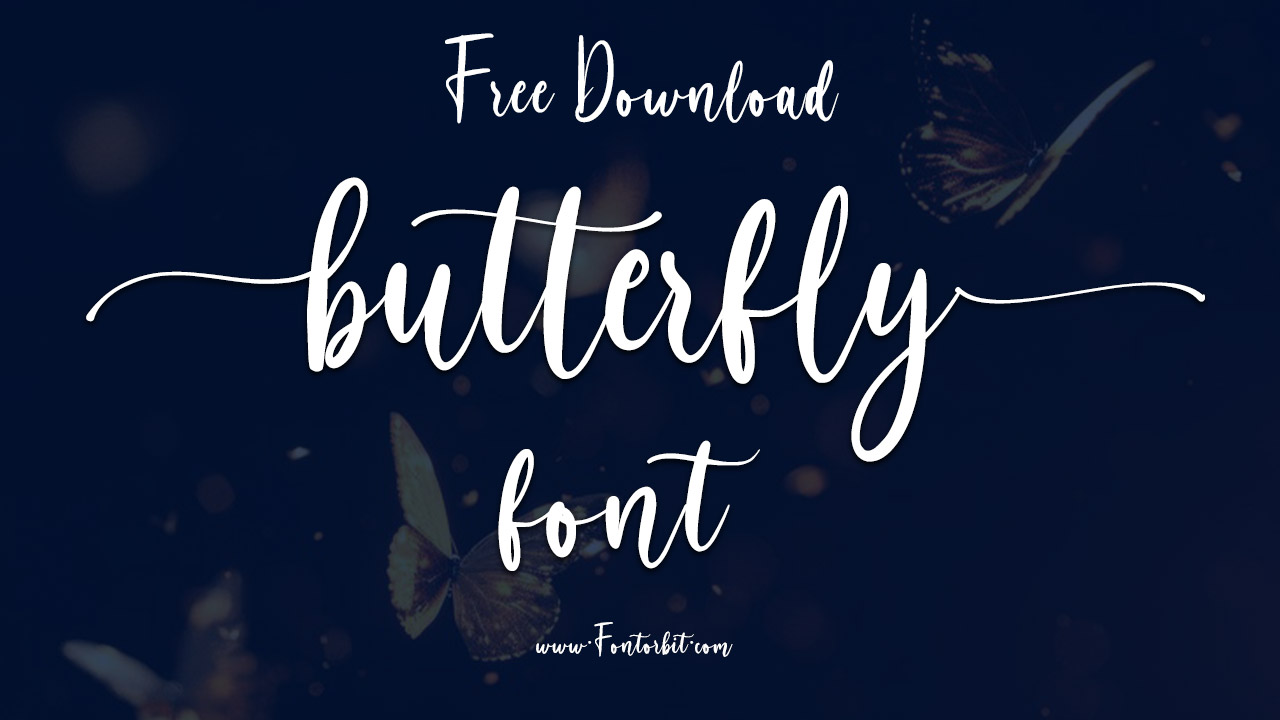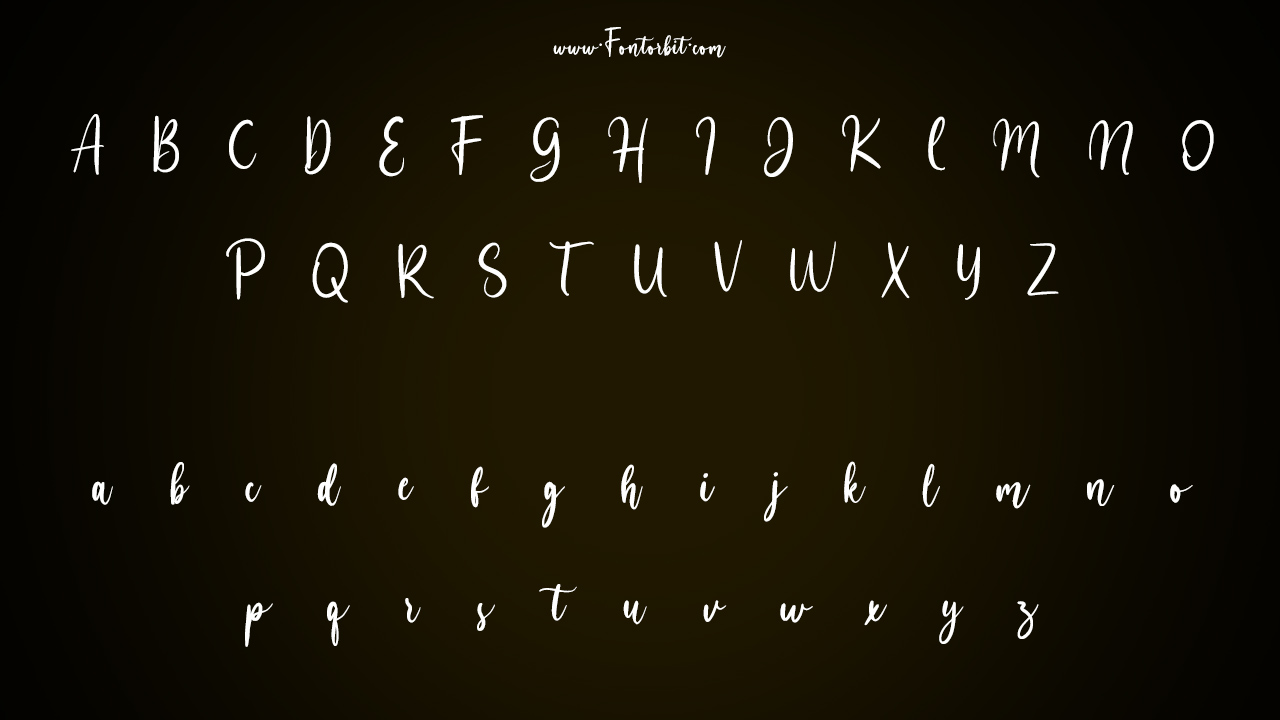
Butterfly Font is an elegant, whimsical font that perfectly embodies a butterfly’s delicate and graceful nature. Well-known designers designed and published it on multiple platforms, gaining popularity in creative and decorative projects. The Butterfly Font family is versatile and perfect for nature-themed designs, invitations, and more.
Butterfly Font Family Includes
The Butterfly Font family offers a collection of typefaces that maintain butterflies’ soft, fluttery essence while providing flexibility. It offers a range of weights and styles, ensuring that it can cater to different design needs.
a. Butterfly Regular
These fonts feature smooth curves and whimsical details, perfect for designs that require a soft, dreamy feel. The various font styles provide options for everything from headlines to body text, adding versatility to your designs.
Notable Uses Of Butterfly Font
The Butterfly Font has found its way into many creative applications, from wedding invitations to logos and branding for nature-based businesses. It’s often seen in:
- Wedding and event invitations
- Logos for beauty, fashion, or nature brands
- Greeting cards and posters
- Children’s books and crafts
- Social media posts and graphics
The font’s delicate lines and intricate flourishes make it ideal for any project that calls for a touch of elegance and whimsy.
The Butterfly Font is perfect for projects where you want to convey elegance, beauty, and lightness. Some ideal applications include:
- Logos and branding for beauty, fashion, and wellness brands
- Posters and flyers for events
- Titles and headings in children’s books or creative writing
- Any nature-related designs, including floral themes, wildlife projects, and more.
It works best in contexts where a soft, airy aesthetic is desired.
The Butterfly Font family is a great choice for projects that require a graceful, natural feel. Its beautiful, flowing lines make it a standout option for wedding invitations, feminine logos, and more.
The family’s versatility allows it to be used in various contexts, from headings to body text, making it a must-have in your design toolkit.
5.Does Butterfly Font Come With Different Styles?
Yes, the Butterfly Font family includes regular, bold, italic, and script variations.